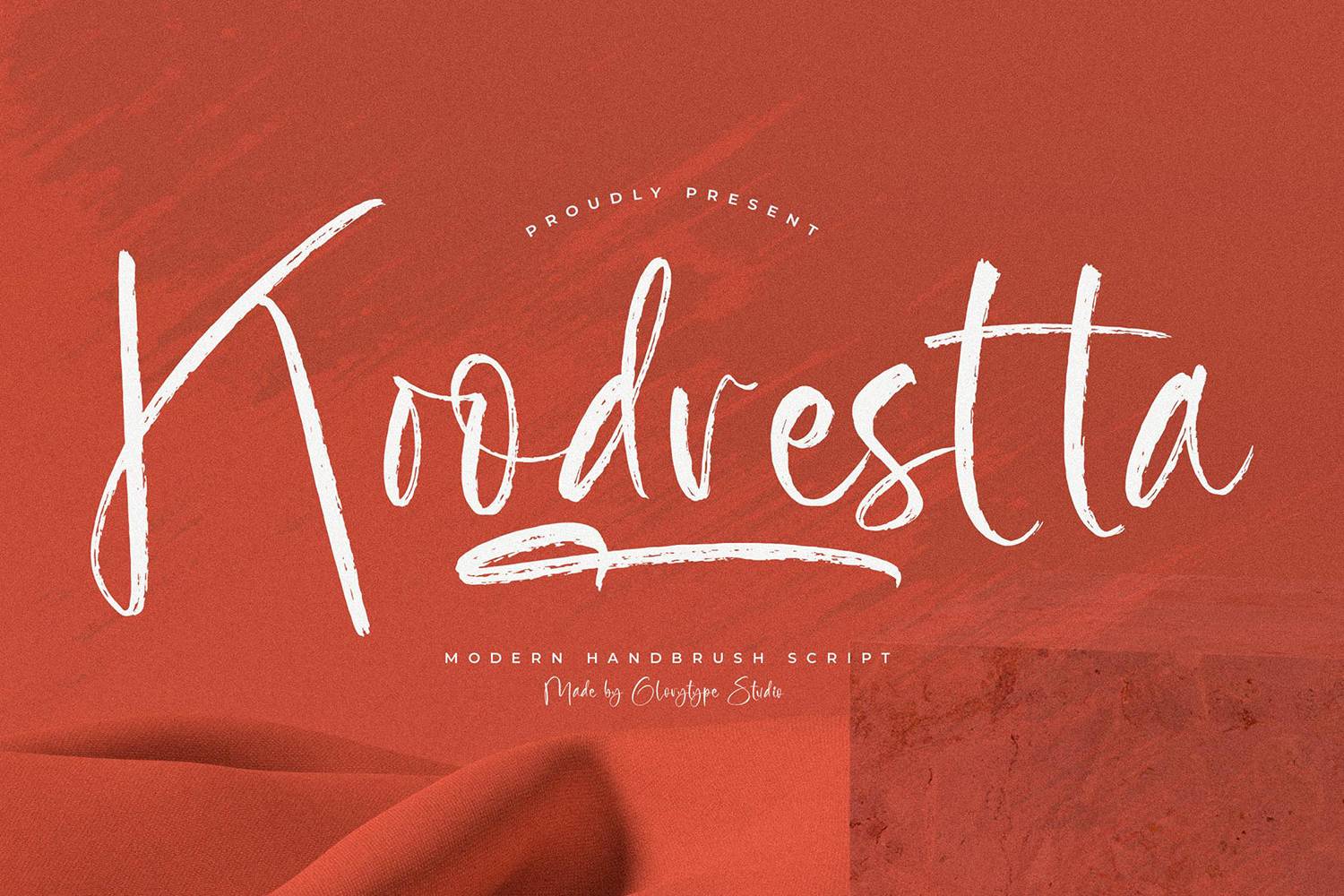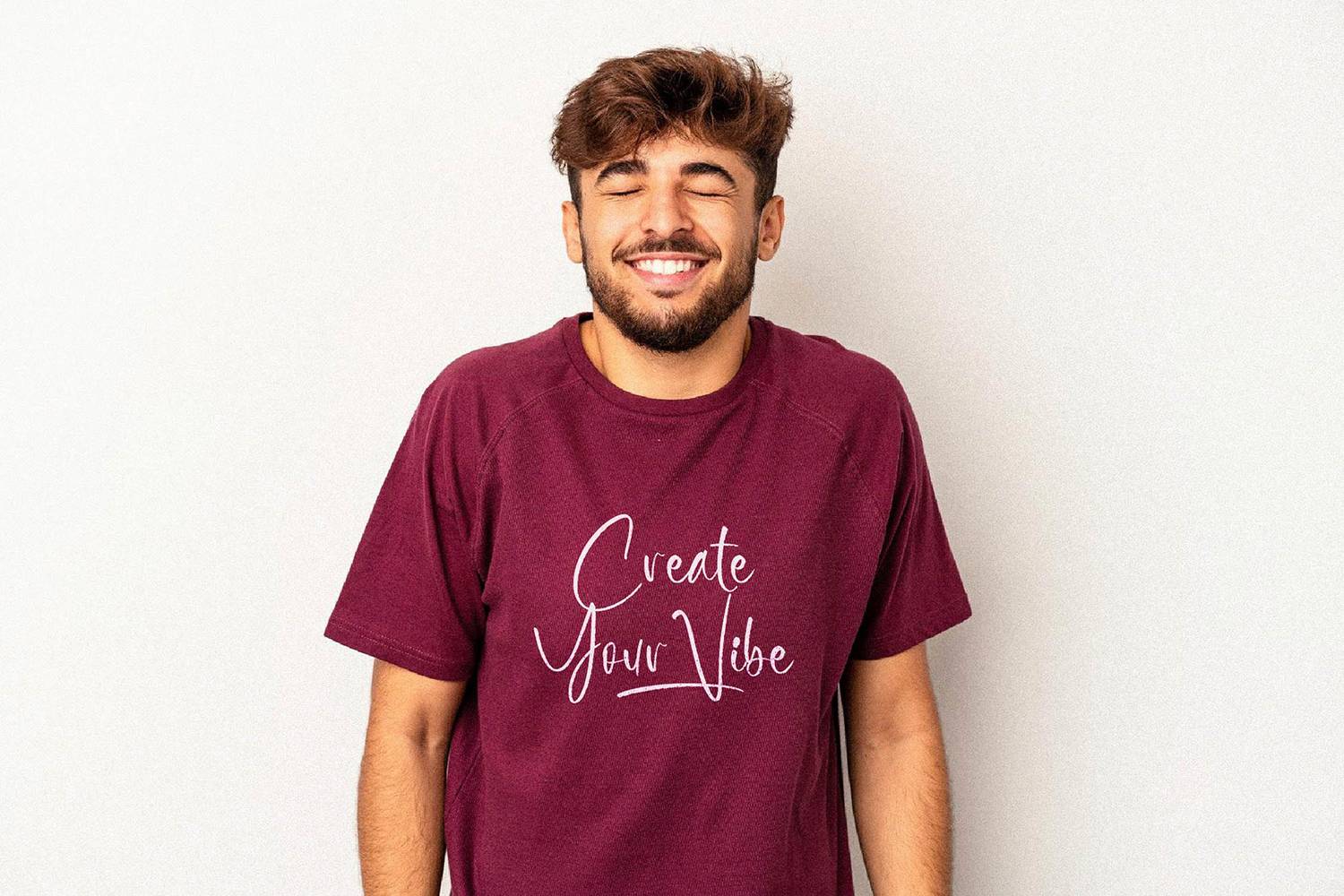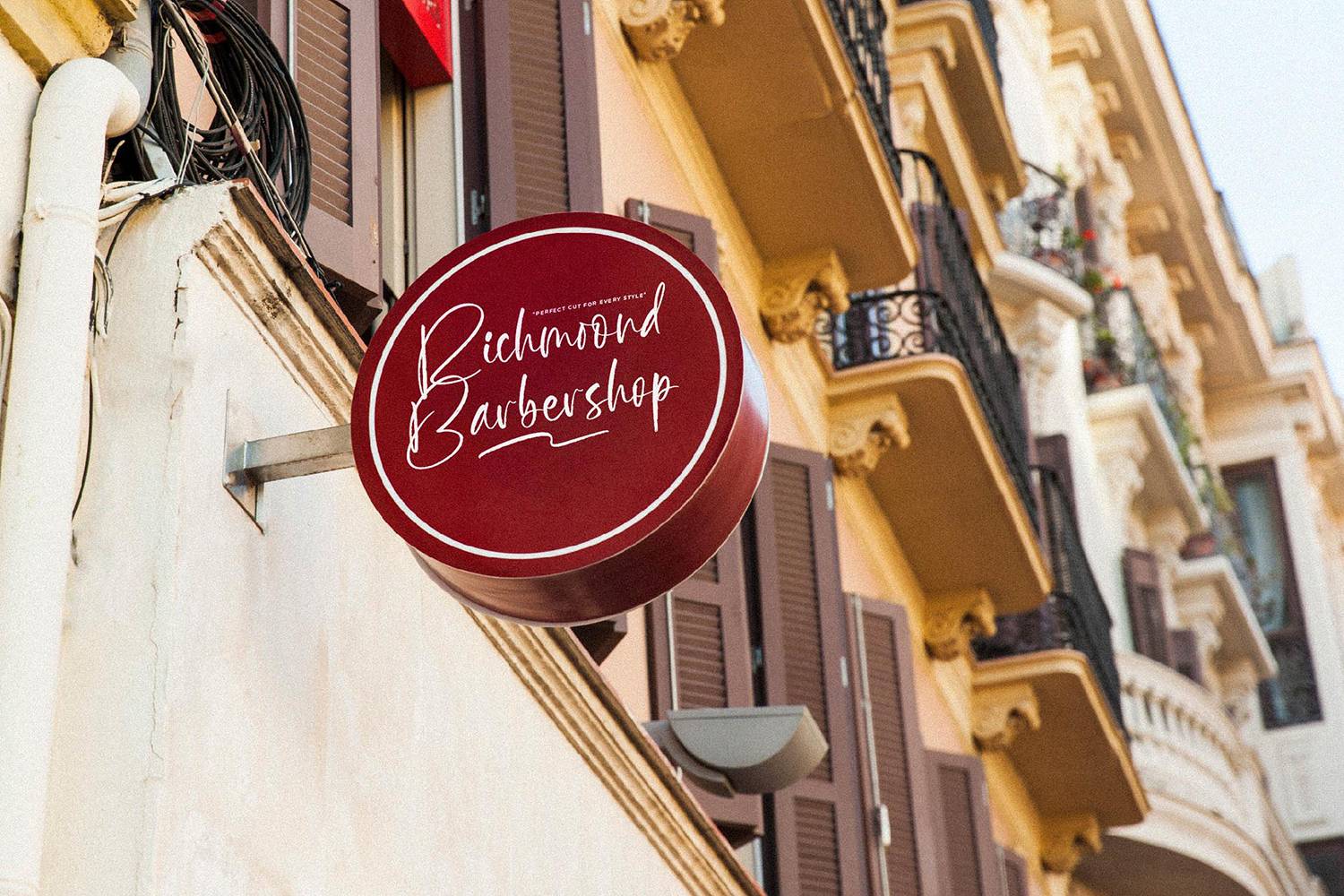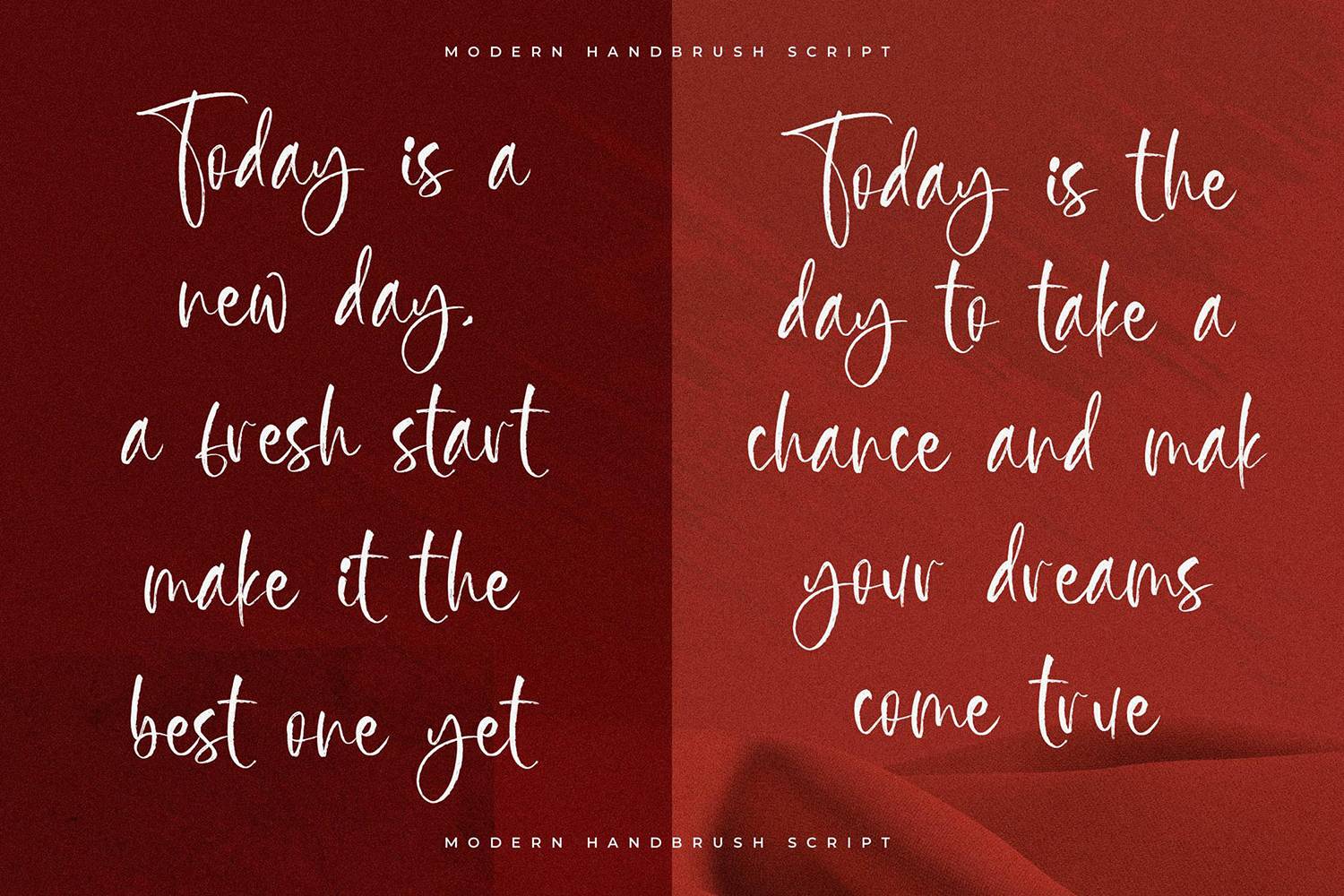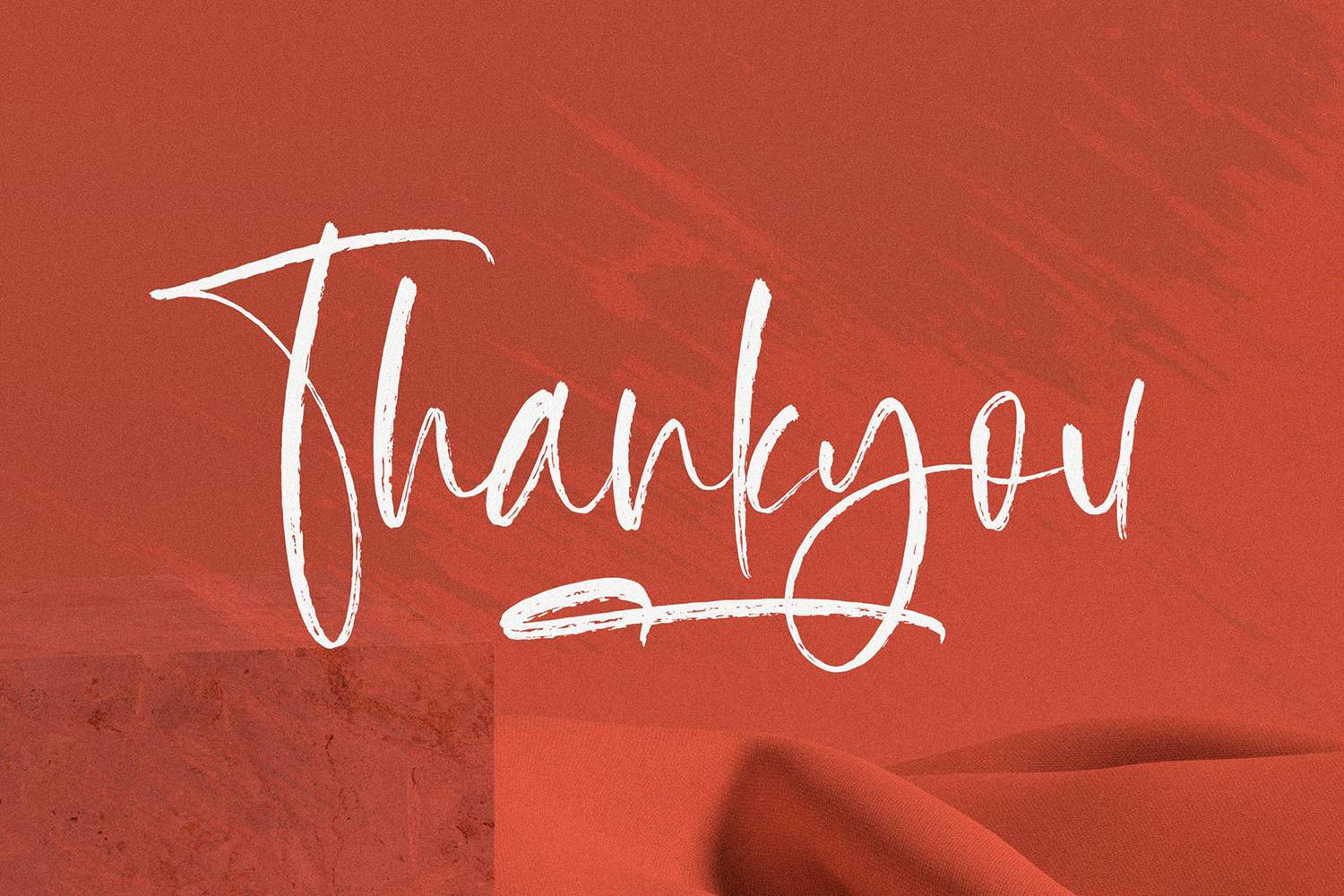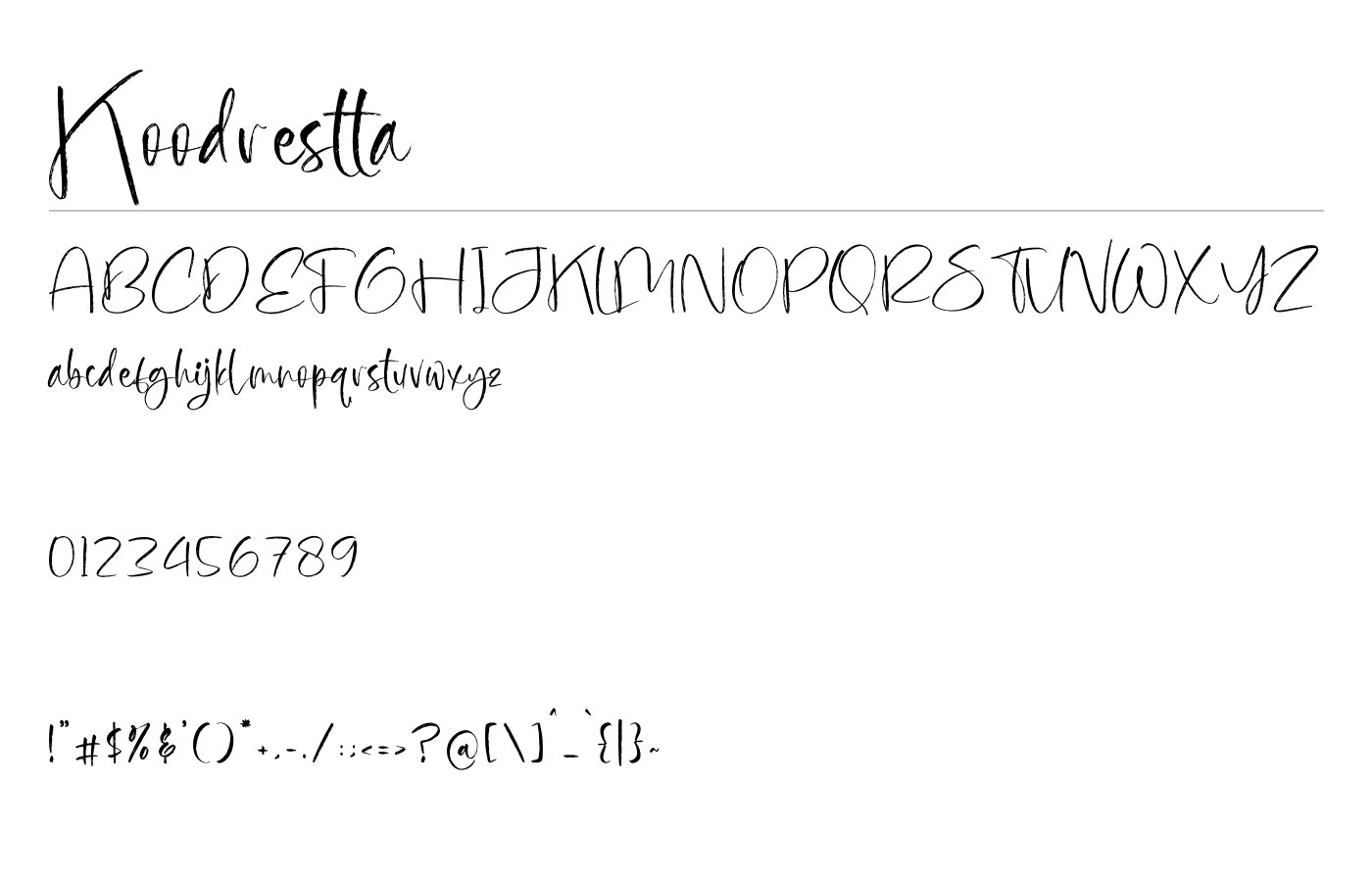
Koodrestta is a delicate, handwritten script font with a casual and airy feel, characterized by its thin strokes and slightly uneven letterforms that mimic natural handwriting. Its tall x-height and playful curves make it perfect for creative projects, adding a personal and friendly touch ideal for invitations, branding, and artistic designs. This font works well where a light, informal, and approachable style is desired, lending warmth and authenticity to any visual communication.
Koodrestta Font
About Koodrestta Font